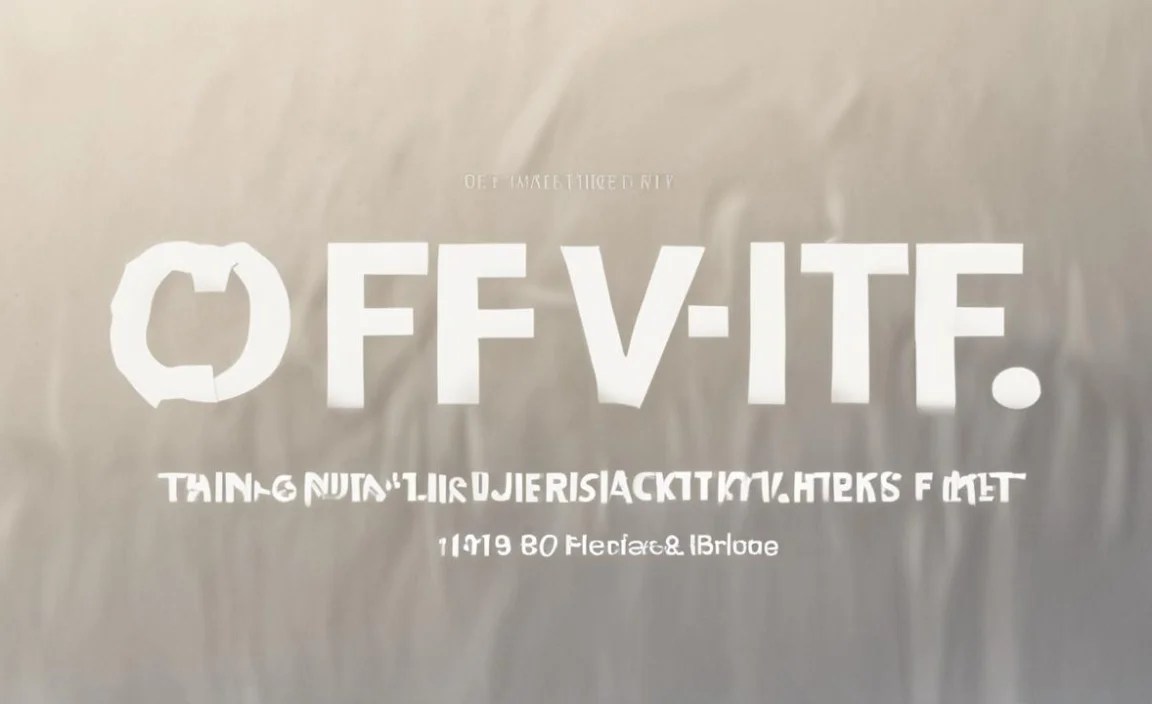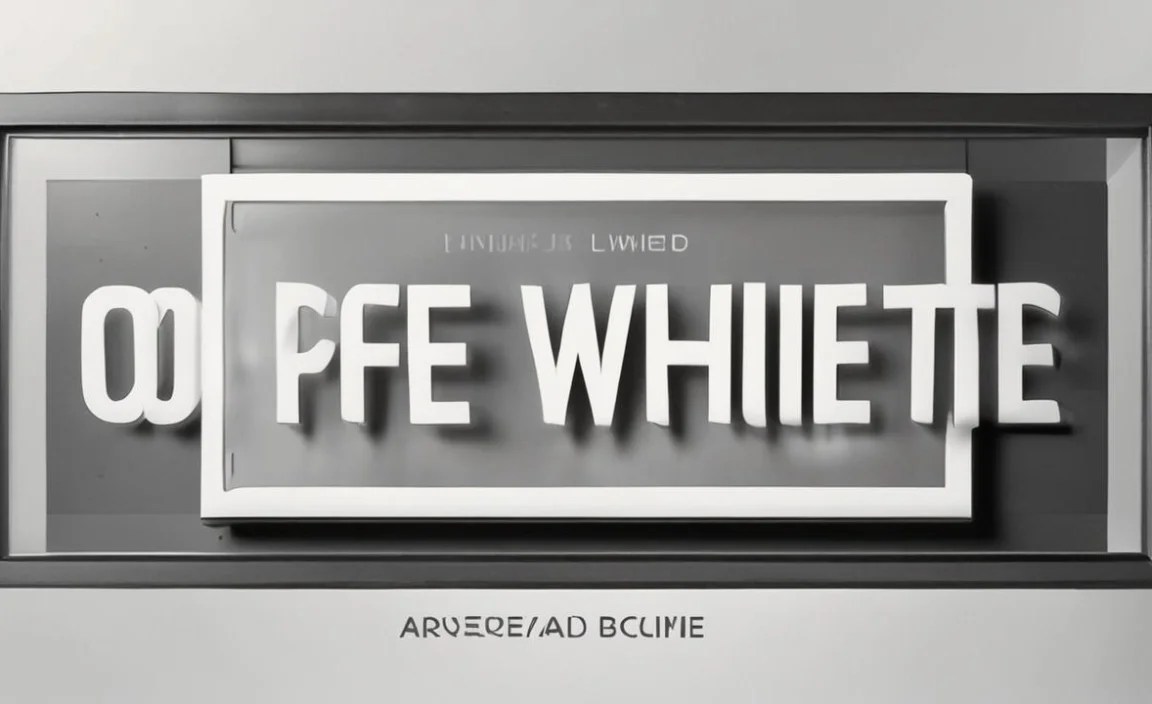
The “Off-White Font” is closely associated with the Off-White brand, founded in 2013 by Virgil Abloh in Milan. Abloh, a renowned designer known for his innovative approach to fashion and design, infused his unique aesthetic into the font.
The Off-White Font is primarily based on Helvetica Bold. The design integrates elements commonly seen in industrial and traffic signage, contributing to the brand’s distinctive modern aesthetics.
The Off White Font Information
| Name | Off White |
| Designer | Virgil Abloh |
| Type | Geometric Sans-serif |
Off White Font Family Includes
The Off-White Font Family is a minimalist and modern sans-serif typeface. It comes in a single style: Regular The font on Off-White website logo uses Bookish by Helsinki Type Studio. The Off-White Font is primarily categorized as a sans-serif typeface, known for its clean, modern lines and minimalist design. It includes elements from Helvetica Bold, a classic sans-serif font family renowned for its clarity and neutrality, and Bookish, which offers a contemporary, geometric style.
Where Off White Font Is In Use
- Labels
- Logo design
- Advertising,
- Personal projects
- Website headers,
- Social media graphics,
- Promotional materials
- Print and digital applications
The Off-White Font is integrated into various aspects of the brand’s visual identity. Featured in retail environments, including storefront signage and in-store graphics at Off-White boutiques located in cities like Milan, New York, and Tokyo. This logo font is used in many traffic signs as well as football and fashion brands.
The font reflects the brand’s signature style, combining modern elegance with a distinctive edge. For more details, you can explore the font through official Off-White resources or design platforms that showcase Abloh’s work.
3. What Is The Font Used In Off-White?
The primary font used in Off-White branding is Helvetica Bold by Linotype, which provides a clean, modern look. The website logo also utilizes Bookish by Helsinki Type Studio.
5. Do You Find The Design Problematic?
The Off-White font design generally receives praise for its modern and minimalist aesthetic. However, issues may arise if the design lacks readability, does not align with the brand identity, or fails to adapt well to various mediums.